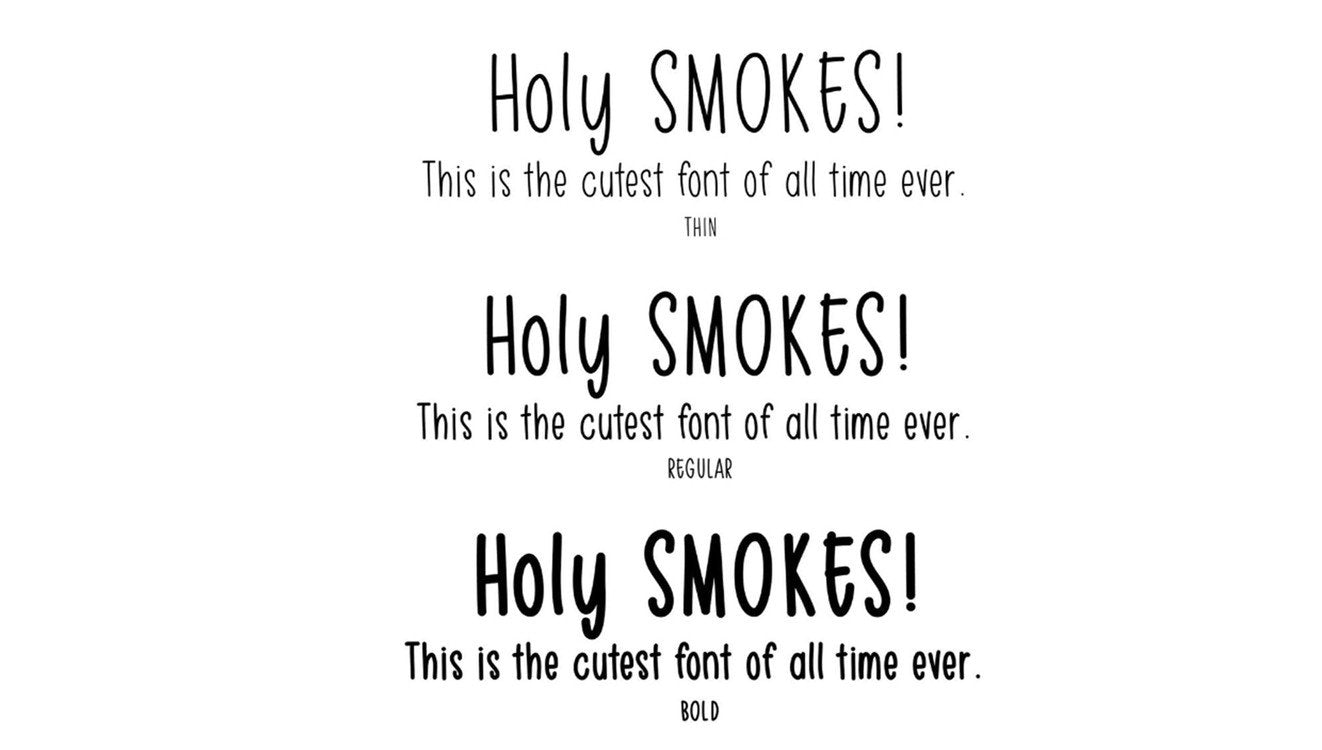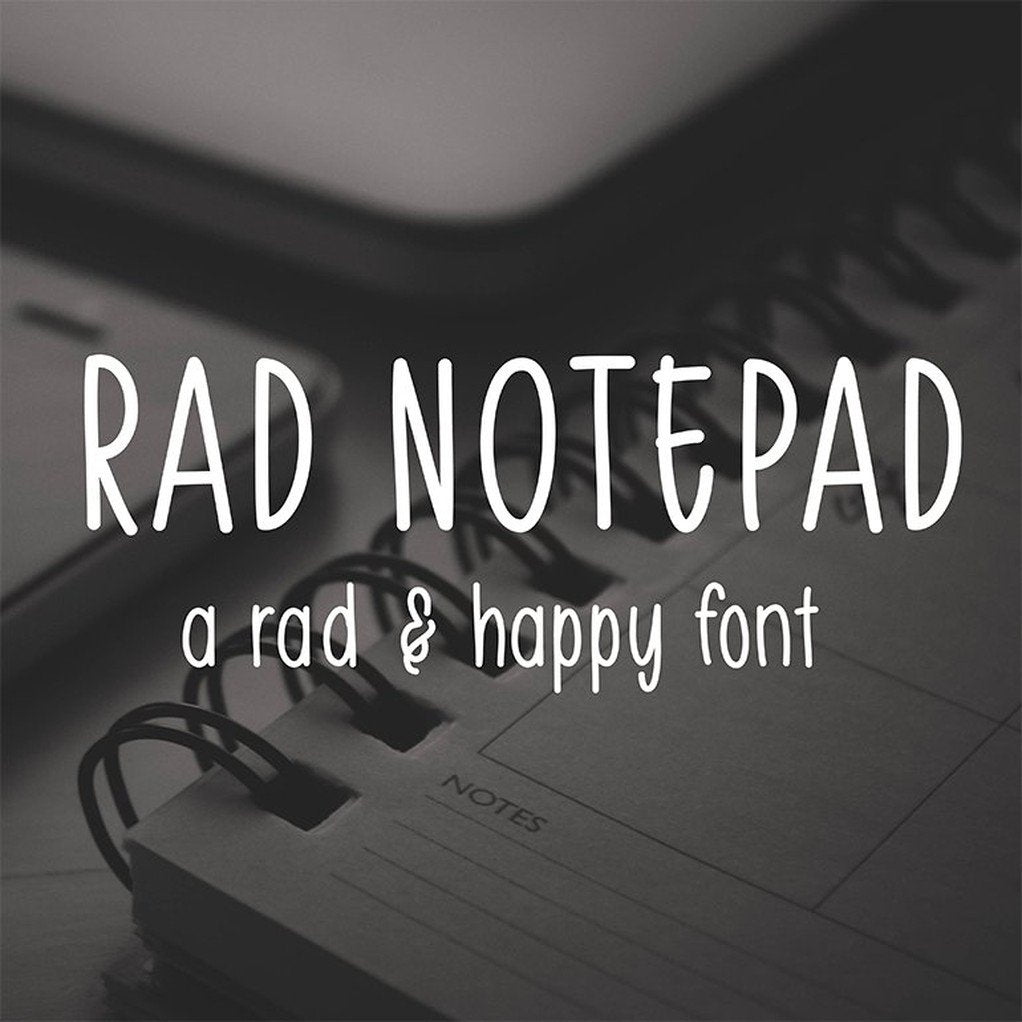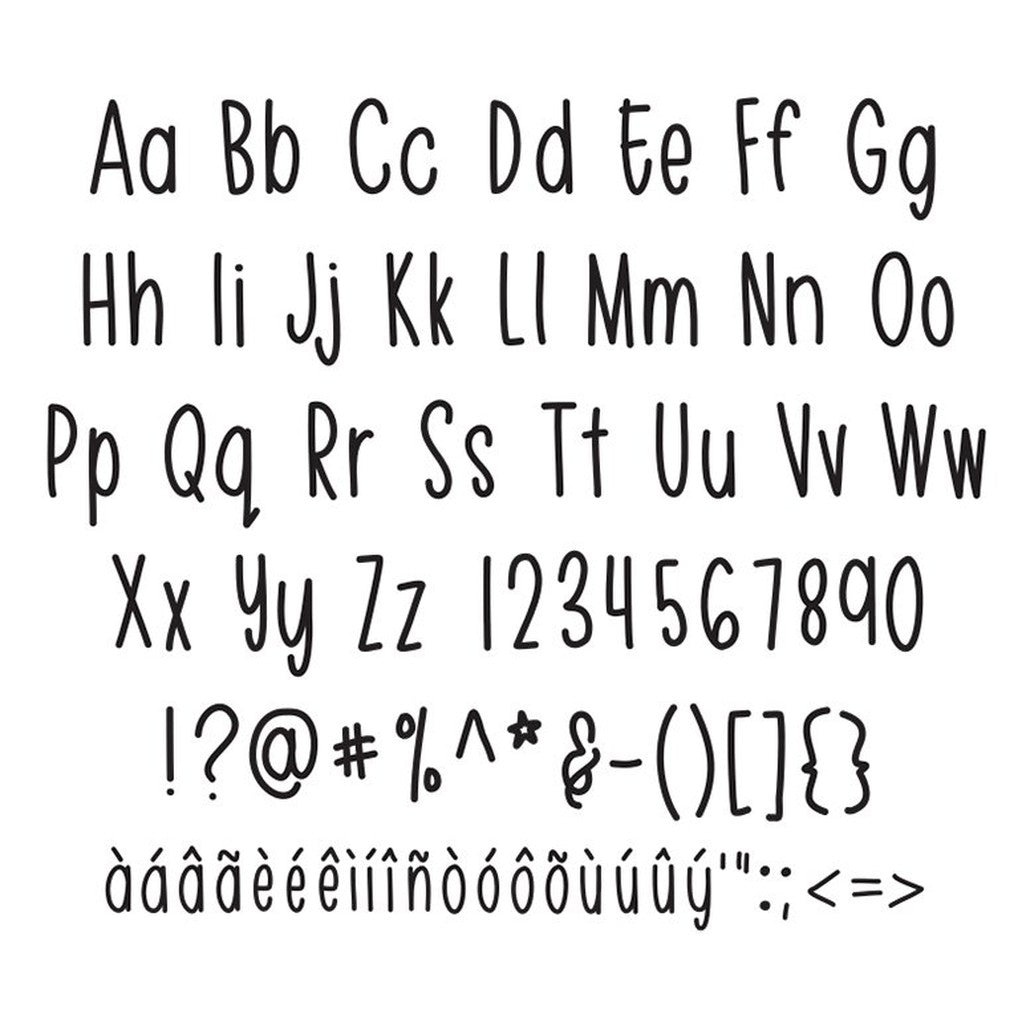
Rad Notepad Font
My middle school self would be GEEKING out that I grew up and made my own handwriting into a Rad & Happy handwritten font. This casual font is perfect to add a playful, handwritten vibe to your projects—great for classrooms, business IG posts, or anything in between.
- Made from Me – My handwriting turned into a font for you!
- Super Playful – Adds a fun vibe without being babyish.
- Versatile Use – Works for school or business projects.
Seriously, if you want a unique, casual font to spice up your designs, this is it—I promise it’ll make your projects pop. It’s been a dream to create, and I’m so stoked for you to try it out!